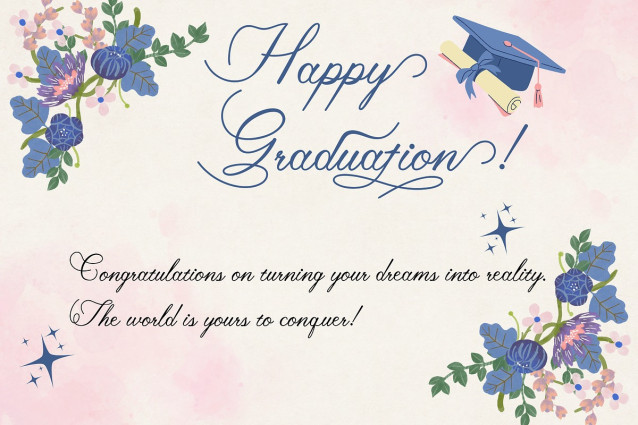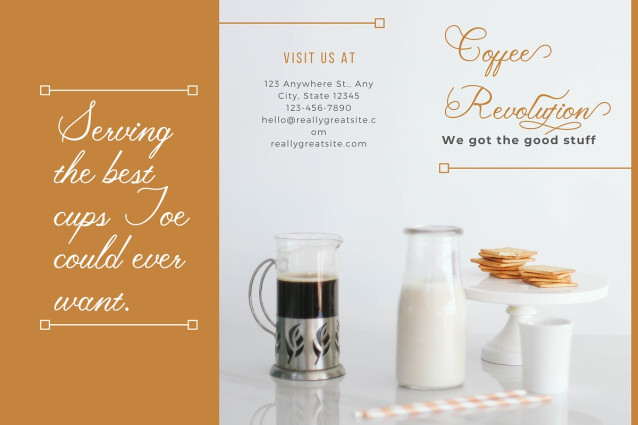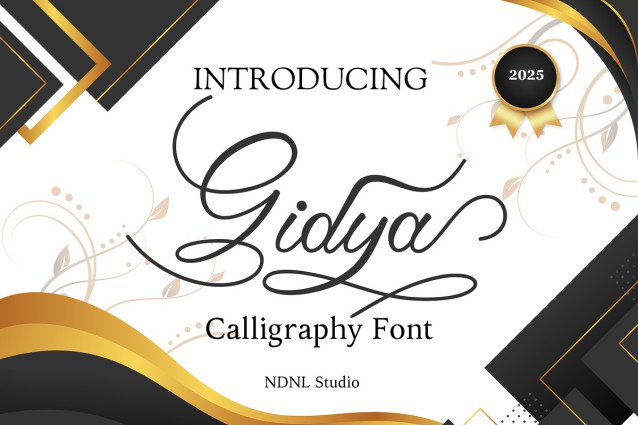
Gidya Font is a calligraphy font designed with inspiration from the timeless beauty of handwritten lettering. Every curve and stroke carries an elegant rhythm, giving your design a balance between artistry and sophistication. With its flowing swashes and stylish characters, Gidya works beautifully in wedding invitations, love letters, luxury branding, product packaging, and editorial design.